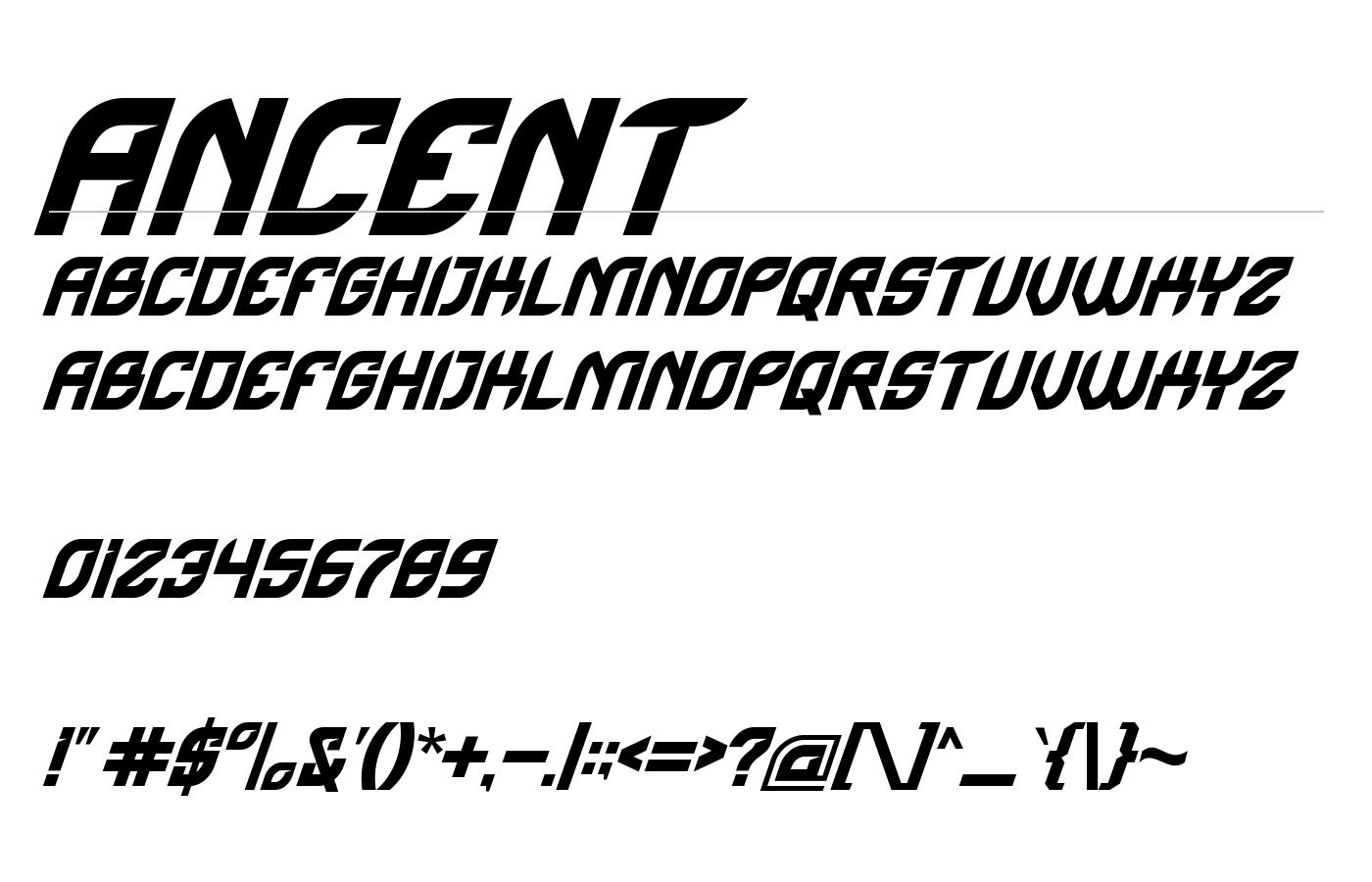
Ancent Font is a bold, condensed sans serif with a dynamic, italicized style that gives it a modern, futuristic feel. Its sharp angles, high contrast between thick and thin strokes, and unique cut-out shapes create an energetic and tech-savvy personality, making it ideal for eye-catching headlines, logos, and branding in creative and digital industries. This font works best where a strong, contemporary impact is needed, adding a sense of speed and innovation to designs.
Ancent Font
About Ancent Font